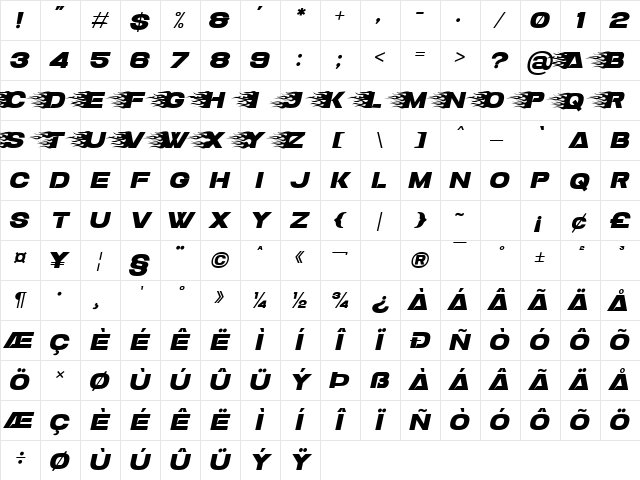
Slugs Racer Regular Free Font
Slugs Racer Regular
Foundry: Ronny Studio
Designer: Rony Rizki Jaya
Design Context for Slugs Racer
Slugs Racer is a composed and adaptable typeface that performs quietly and consistently across a wide range of design contexts.